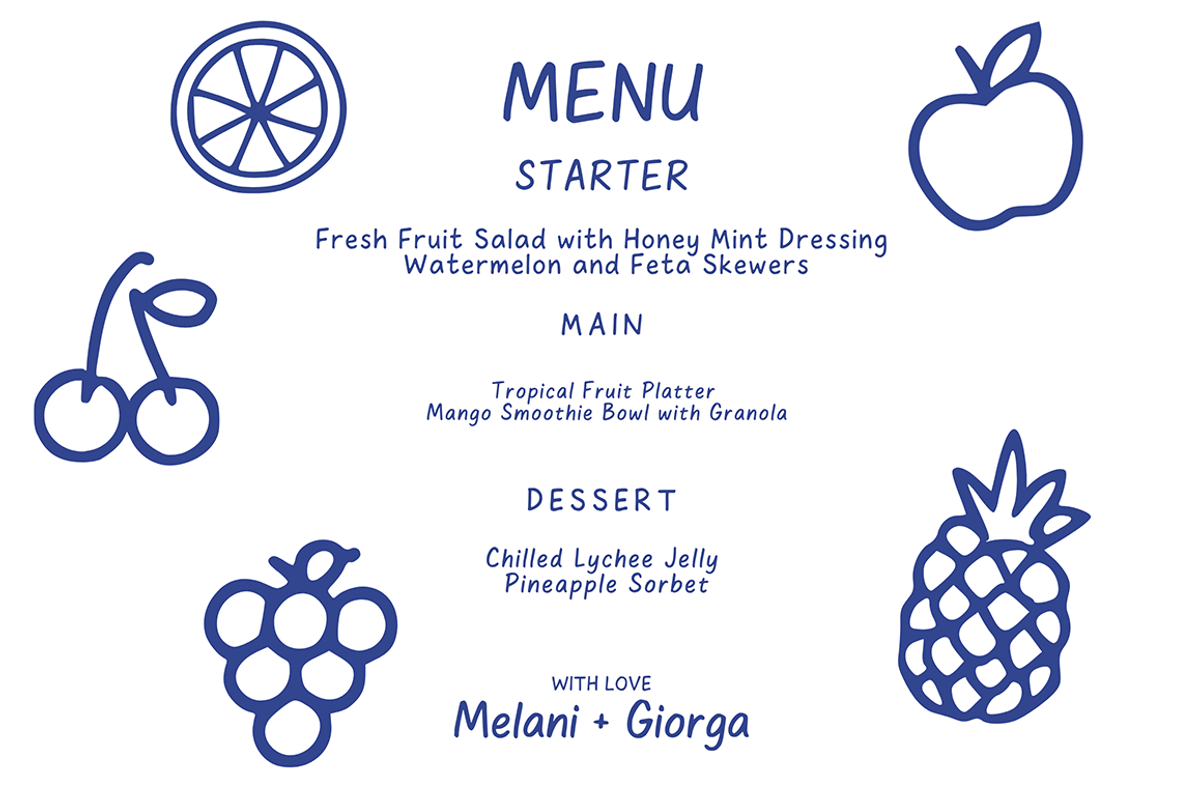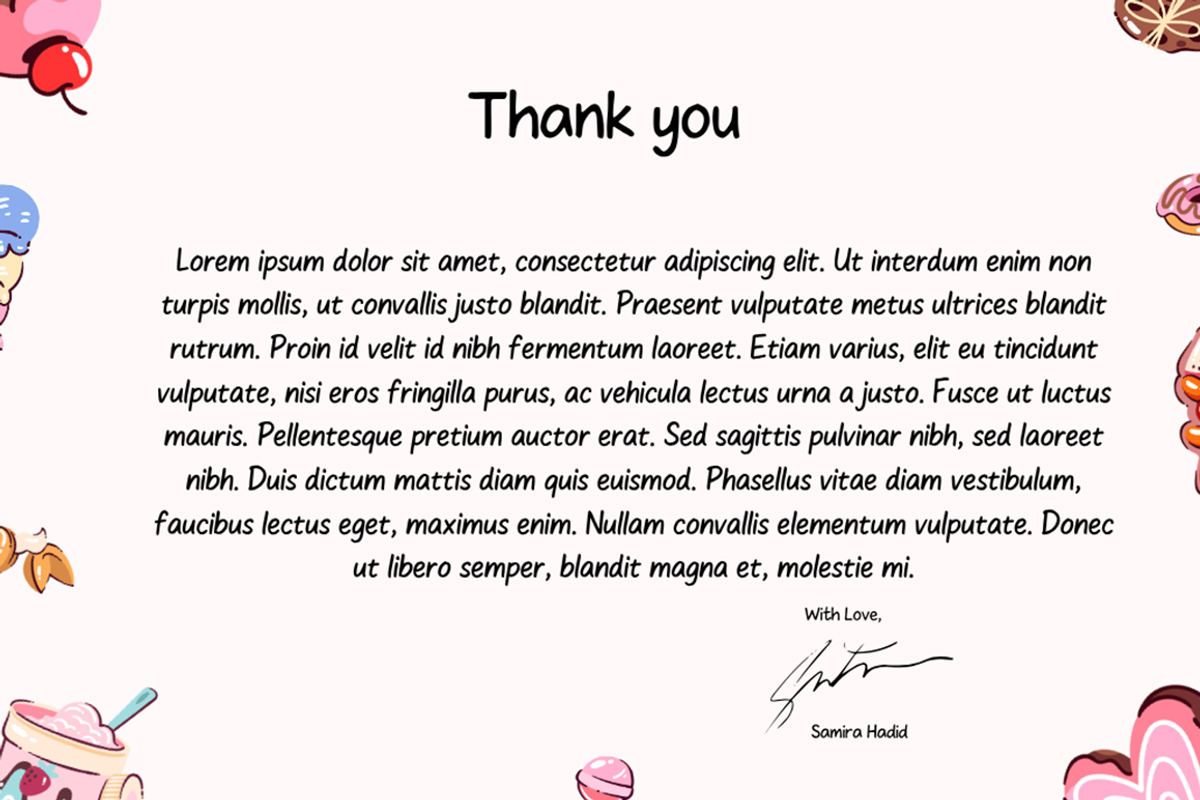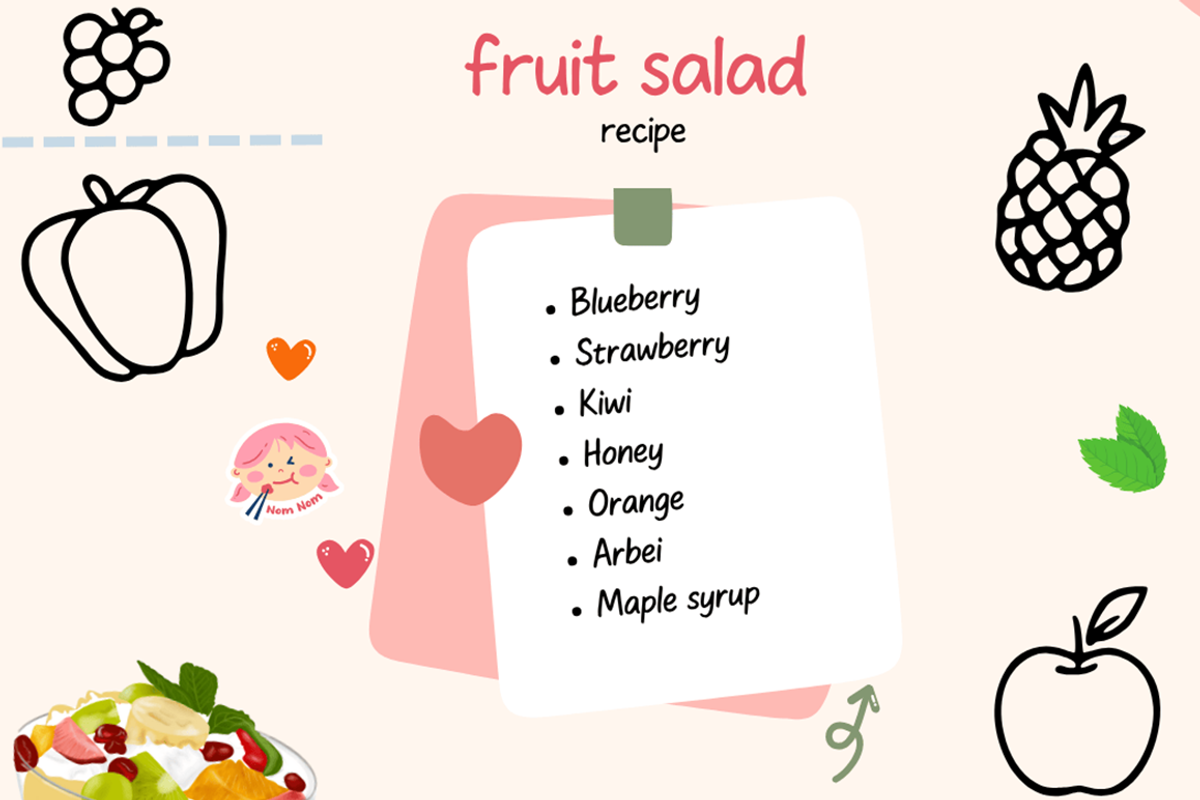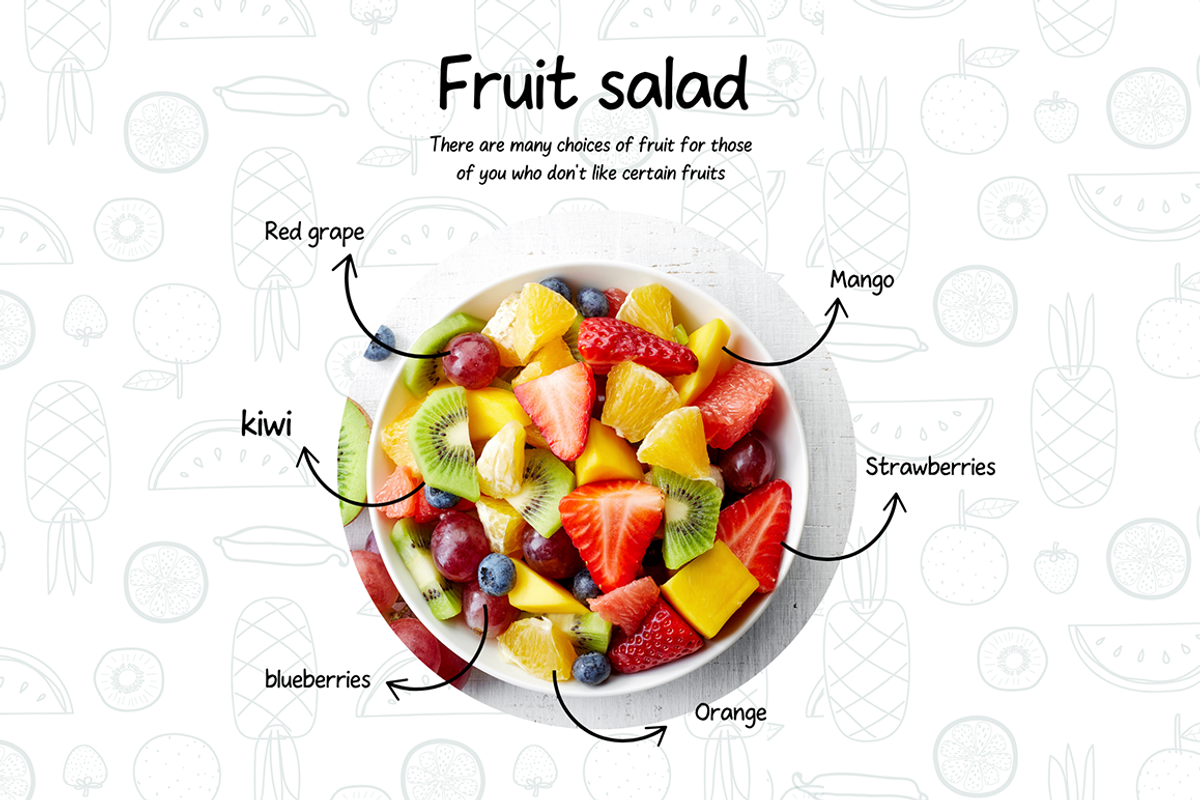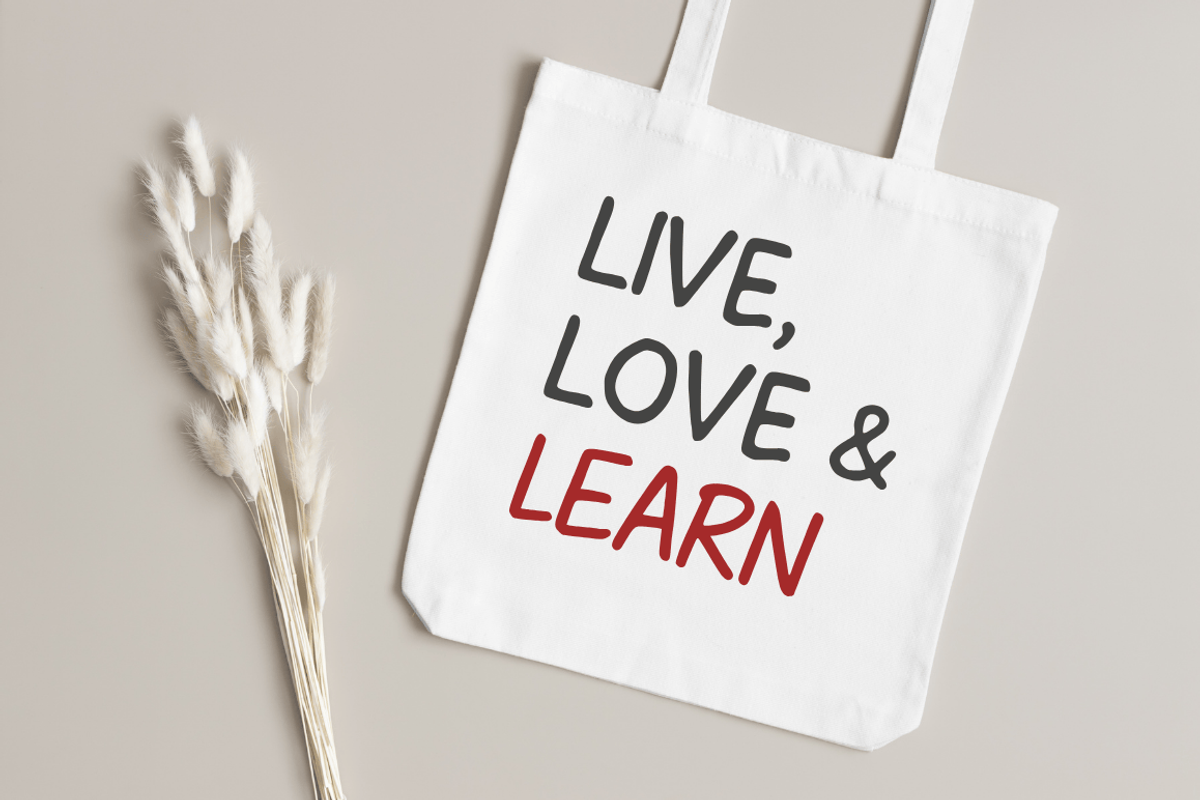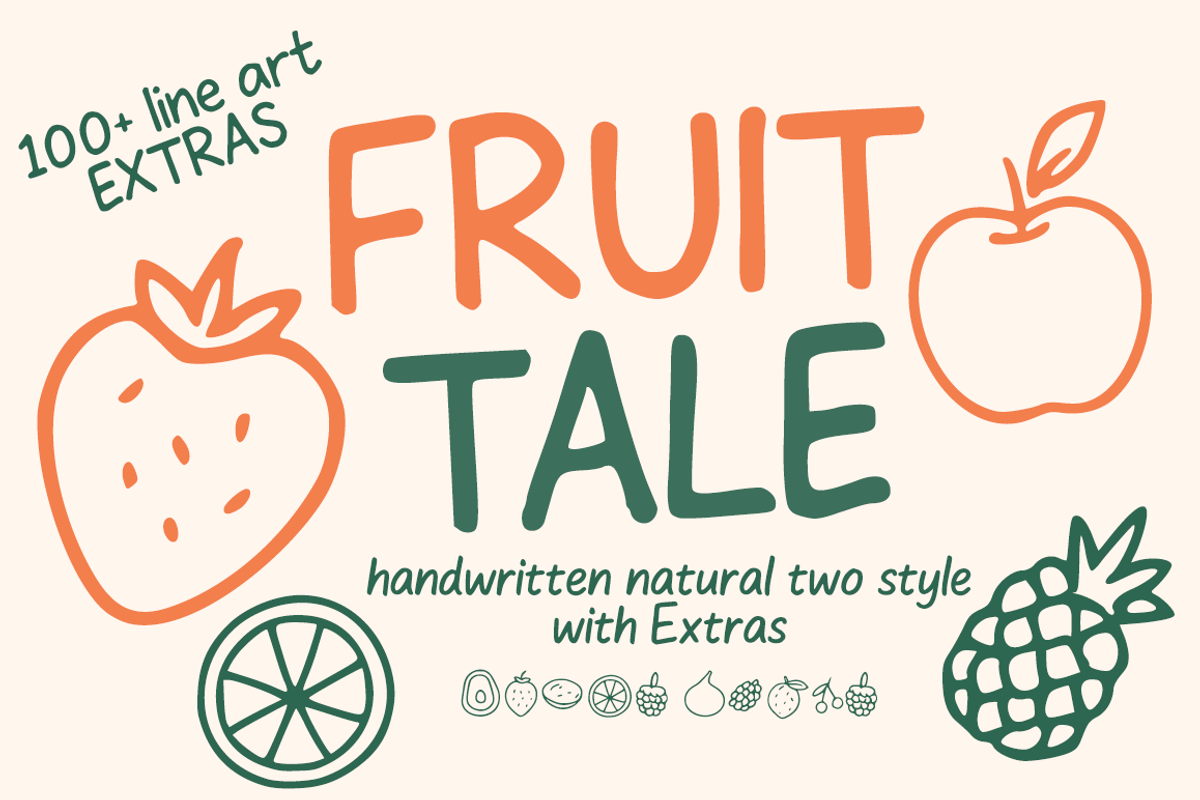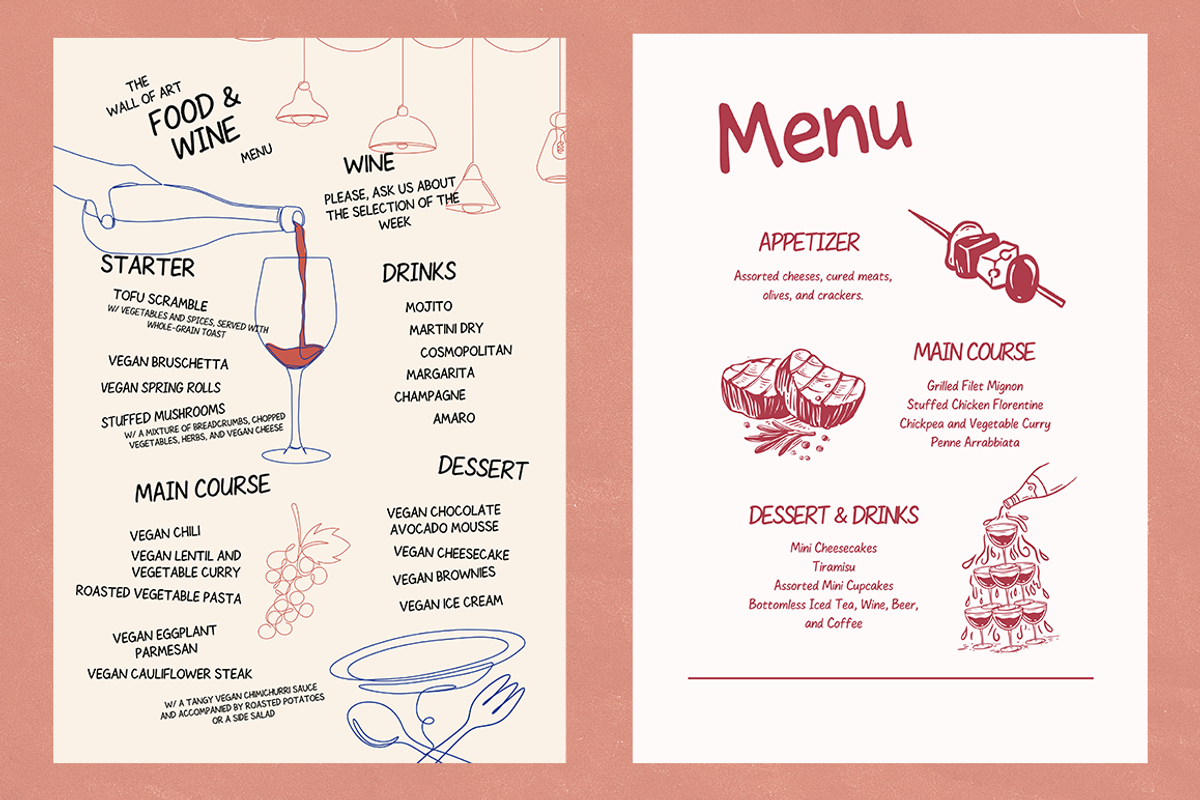
FRUIT TALE – Handwritten Natural
FRUIT TALE – Handwritten Natural Two-Style Font with Extras
FRUIT TALE is a natural handwritten font featuring two playful styles designed to bring a fresh and cheerful look to any project. The lettering has an organic flow with smooth curves, giving it a friendly and approachable character.
This font comes with 100+ fruit-themed line art extras, including strawberries, apples, oranges, pineapples, and more. Each illustration is crafted with clean, consistent lines, making them perfect as decorative elements.